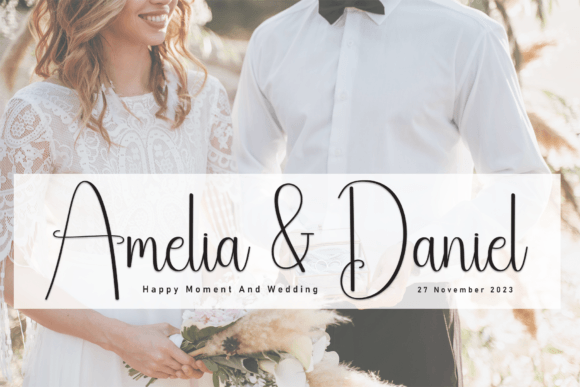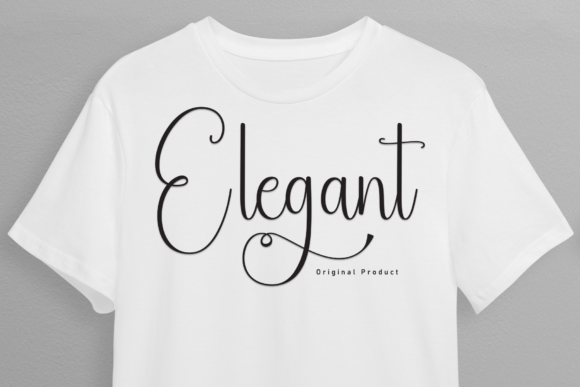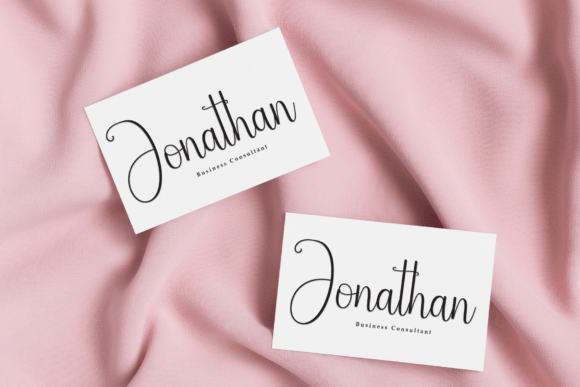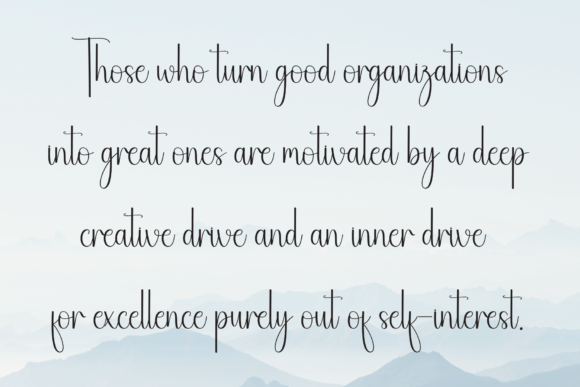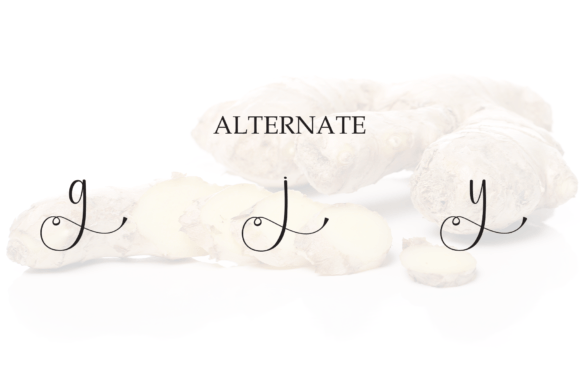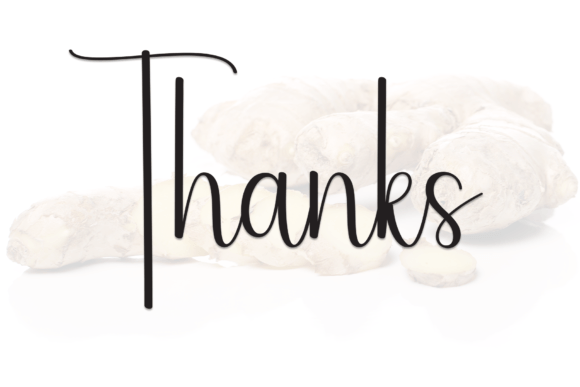
Ginger Font: Add a Sweet and Friendly Touch to Your Designs
Are you looking for a font that can add a playful and whimsical touch to your designs? Look no further than the Ginger Font! This sweet and friendly handwritten display font is perfect for creating eye-catching wedding invitations, cards, and other designs that require a fun and personal touch.
What is Ginger Font?
Ginger Font is a beautiful, hand-written display font that exudes warmth and friendliness. Its cute and fun design makes it an ideal choice for designers and crafters who want to add a personal touch to their work. The font’s playful and whimsical nature makes it perfect for a variety of design projects, from wedding invitations and cards to posters, flyers, and more.
Key Features of Ginger Font
- Handwritten Display Font: Ginger Font is a handwritten display font that has a personal and unique feel to it.
- Cute and Fun Design: The font’s design is playful, whimsical, and perfect for adding a fun touch to your designs.
- Ideal for Wedding Invitations and Cards: Ginger Font is perfect for creating beautiful and eye-catching wedding invitations, cards, and other paper crafts.
- Easy to Read: The font is easy to read, making it perfect for designs that require a clear and legible text.
Uses of Ginger Font
Ginger Font is a versatile font that can be used for a variety of design projects. Here are some of the most popular uses of this font:
- Wedding Invitations: Create beautiful and eye-catching wedding invitations that set the tone for the big day.
- Cards: Design personalized cards for birthdays, anniversaries, and other special occasions.
- Posters and Flyers: Use Ginger Font to create eye-catching posters and flyers for events, promotions, and more.
- Paper Crafts: Add a personal touch to your paper crafts, such as scrapbooking, journaling, and card making.
Ginger Font is a sweet and friendly handwritten display font that is perfect for adding a fun and personal touch to your designs. Its cute and fun design makes it ideal for wedding invitations, cards, and other paper crafts. With its versatility and ease of use, Ginger Font is a must-have font for designers and crafters who want to create eye-catching and unique designs.
Overall, Ginger Font is a beautiful and versatile font that can add a sweet and friendly touch to your designs. Its cute and fun design makes it perfect for a variety of design projects, from wedding invitations and cards to posters and flyers. So why not give it a try and see how it can elevate your designs?